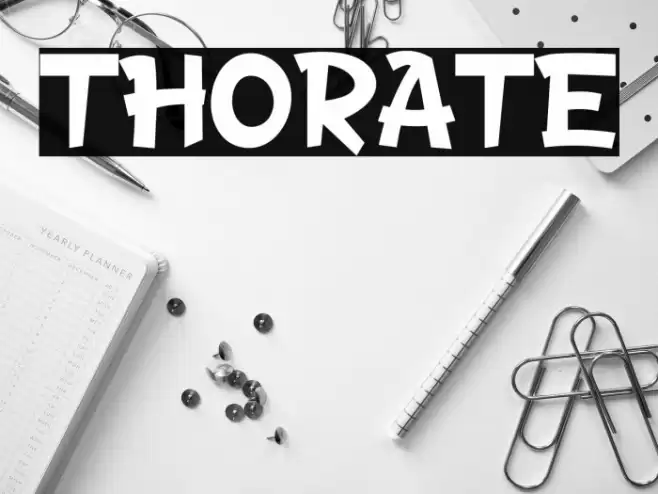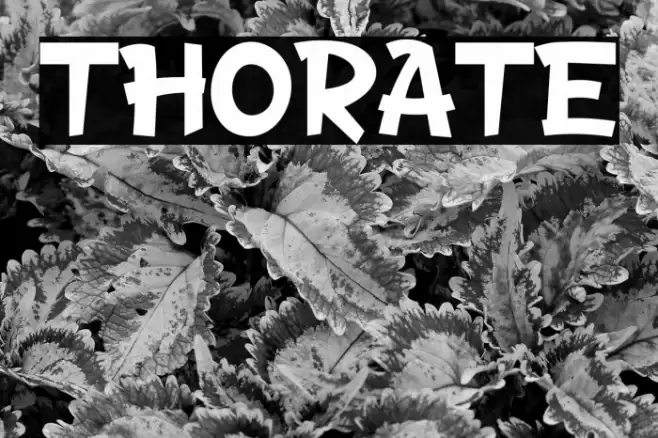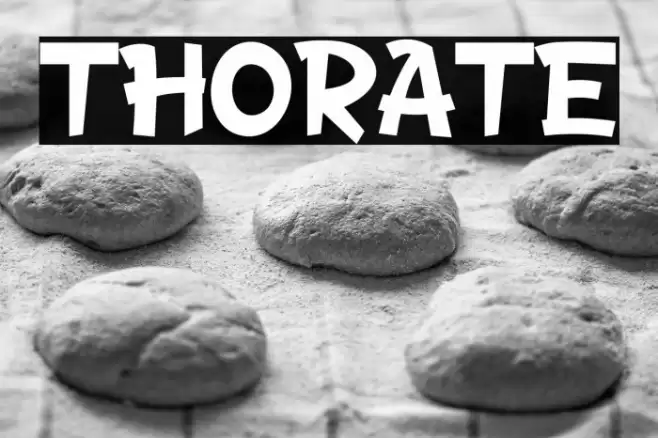
THORATE Font
THORATE Description
This font features a playful and bold style, characterized by its thick, uneven strokes and slightly irregular shapes. The uppercase letters have a whimsical, almost cartoon-like appearance, with exaggerated curves and angles that give them a lively and energetic feel. The lowercase letters maintain this playful aesthetic, with rounded forms and a consistent stroke weight that adds to the font's overall charm. The numerals and special characters are designed to match the letters' quirky style, making them suitable for creative and informal projects. The font's unique personality makes it stand out, offering a fun and engaging visual experience.
A playful, bold font with whimsical, cartoon-like characters from Cartoon fonts.
- Proposed Projects: Ideal for children's books, playful branding, party invitations, and creative posters.
- Overall Style: Playful